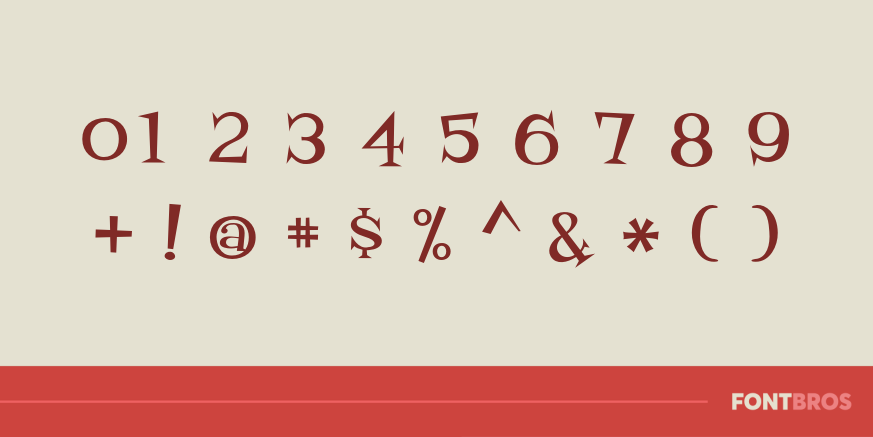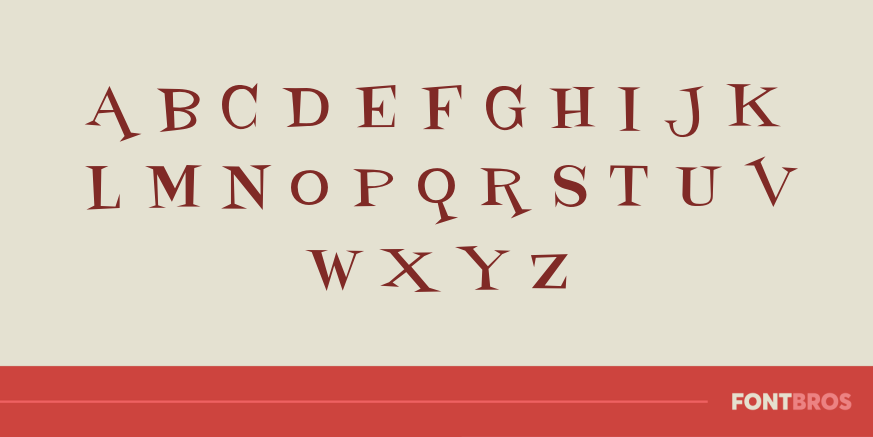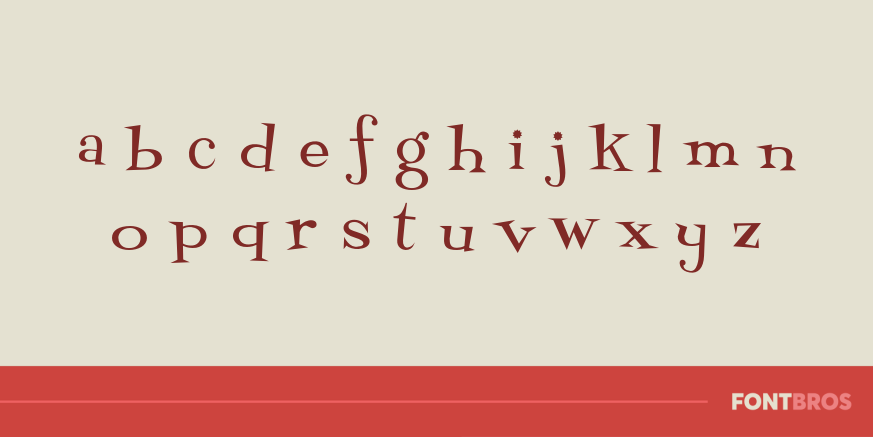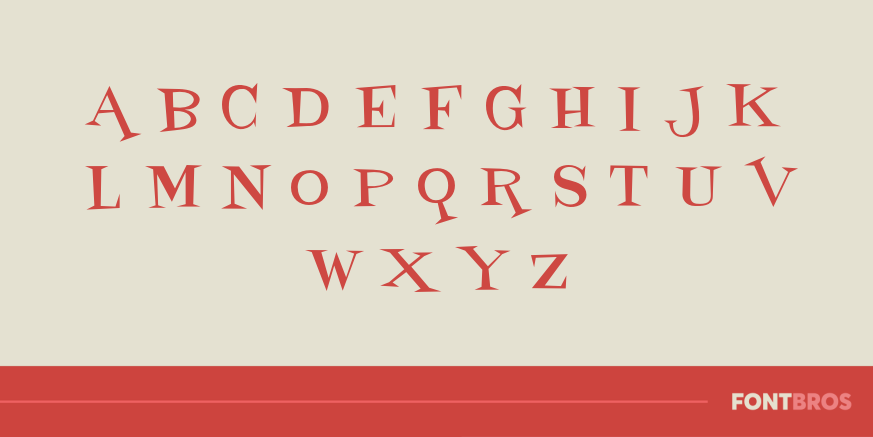
The lights are low, the jazz is smooth, and the crowd is swingin', Libation in one hand, the other one snappin' to the hi-fi rhythms of the coolest cats this side of mellowsville!
Font Style Fontdinerdotcom Loungy